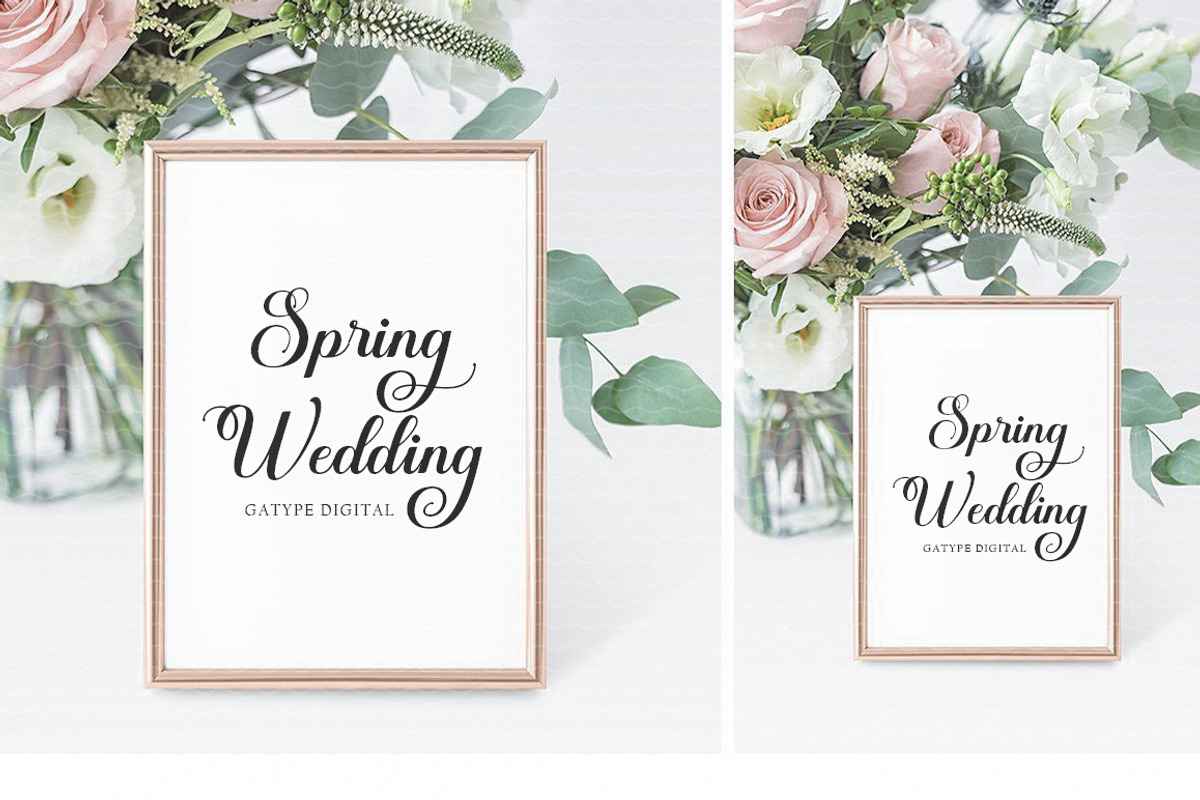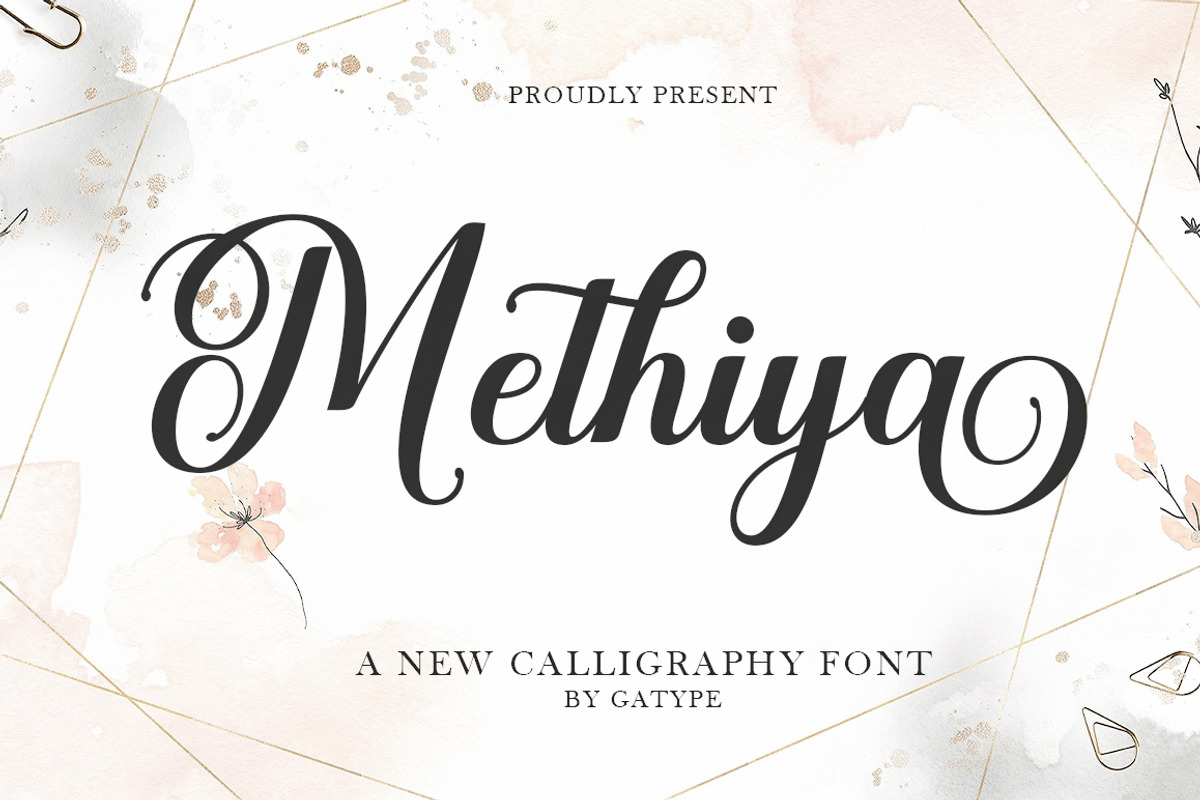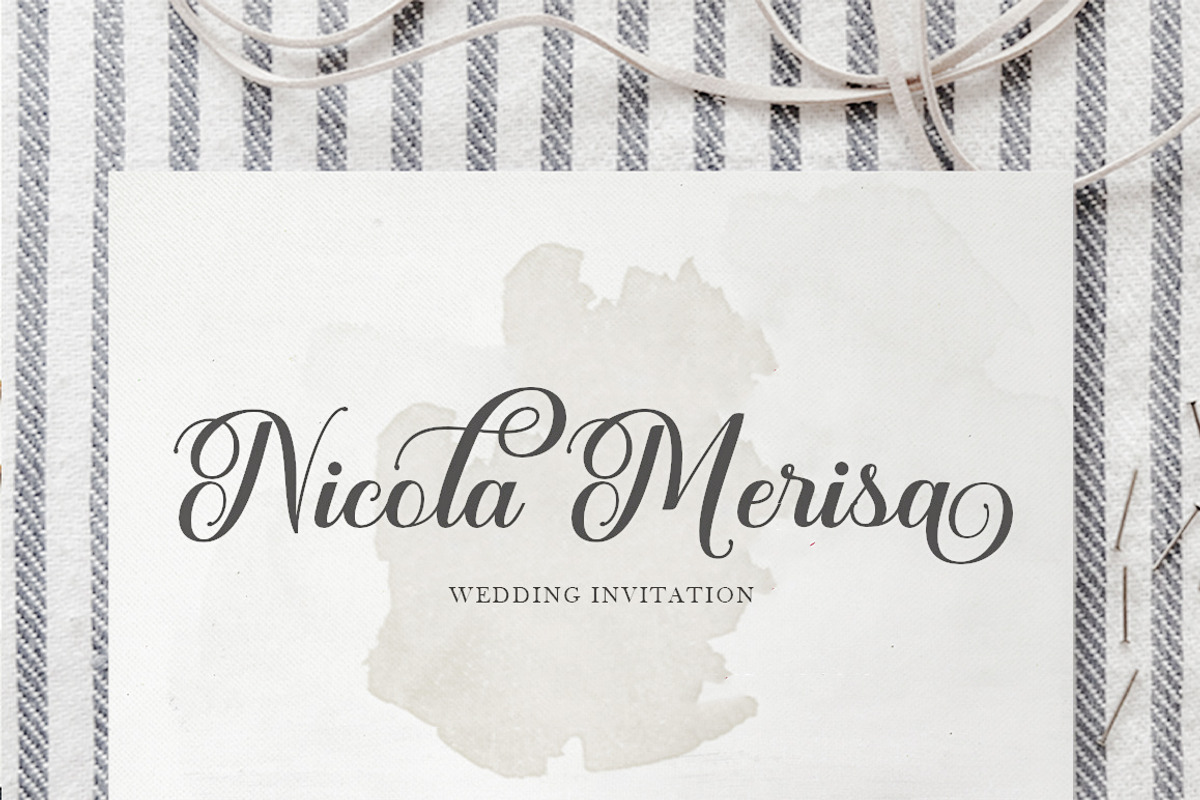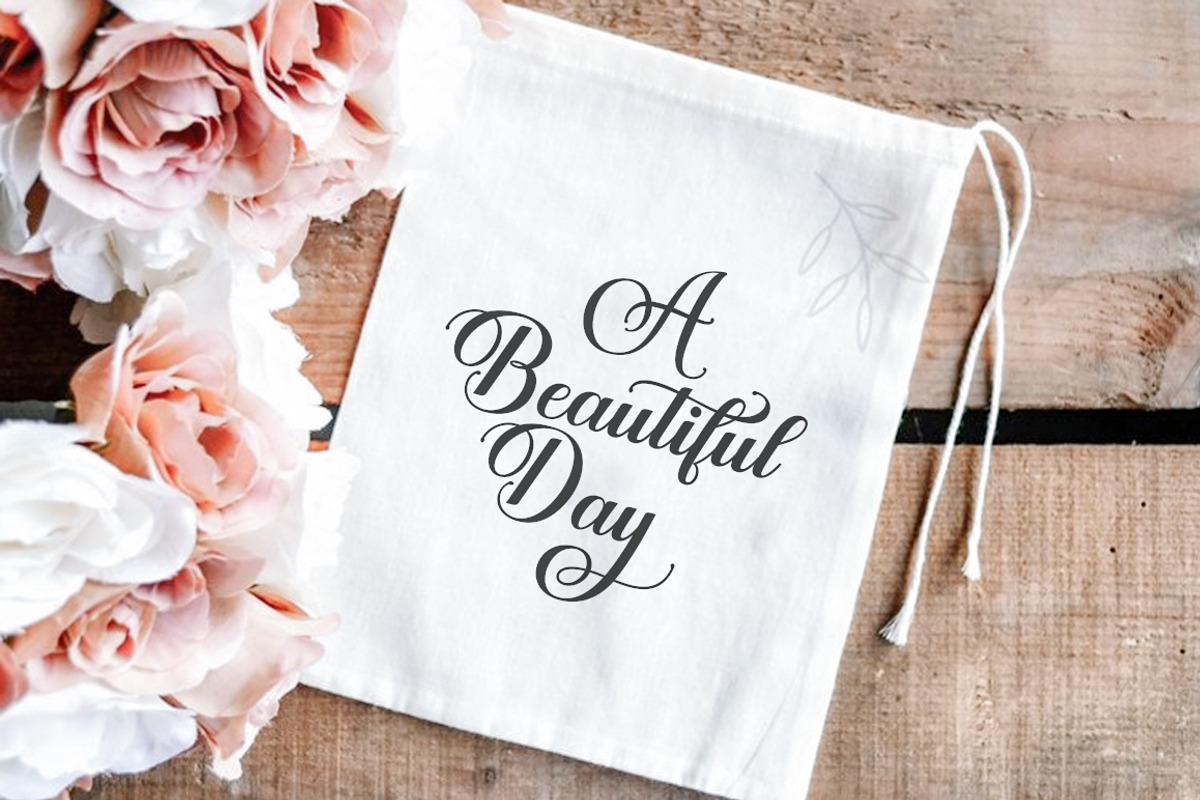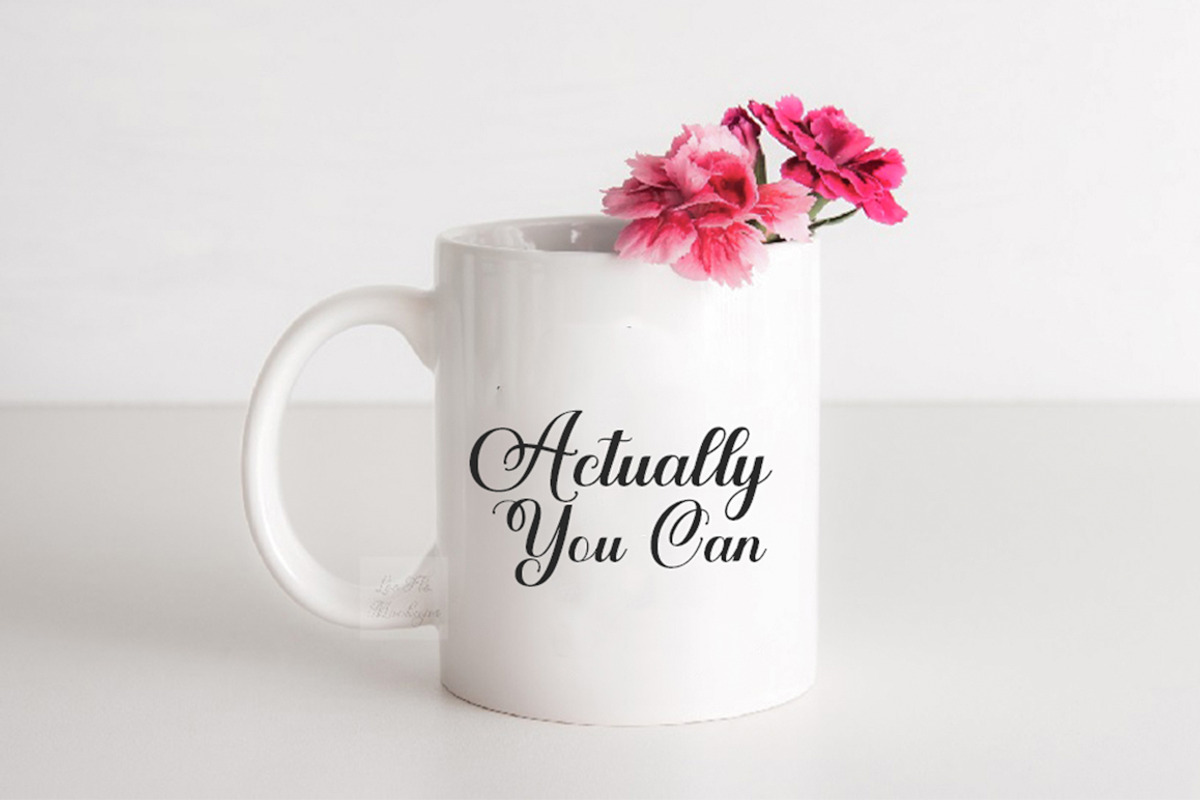
Methiya
Methiya includes a full set of upper and lower case letters, multilingual symbols, numbers, punctuation, alternatives and ligatures. This font has a Modern Elegant Style, perfect for branding, logos, invitations, masterheads and more. Methiya features OpenType style alternatives, International binders and support for most Western Languages included. To enable the OpenType Stylistic alternative, you need a program that supports OpenType features such as Adobe Illustrator CS, Adobe Indesign & CorelDraw X6-X7, Microsoft Word 2010 or later.